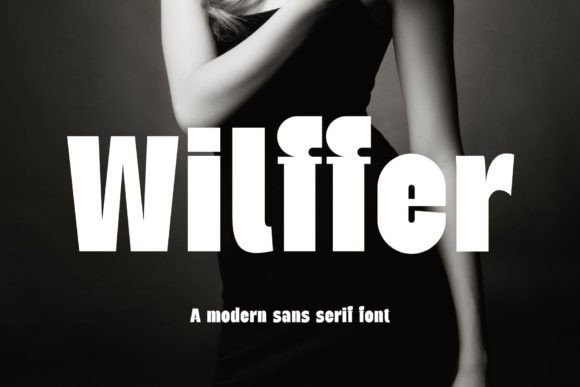
Dive into the realm of style and poise with Wilffer Font, the sans serif masterpiece designed to captivate fashion-forward bloggers and designers. Wilffer isn't just a font; it's an expression of modern aesthetics, meticulously crafted to elevate your digital creations to new heights of sophistication.
With Wilffer, your designs will exude an air of elegance and minimalism, capturing the essence of contemporary fashion. Its clean lines and balanced proportions dance harmoniously on the screen, creating a visual symphony that draws eyes and captivates hearts. Whether you're crafting logos, website layouts, or eye-catching social media posts, Wilffer provides the perfect canvas for your creative genius.
Fashion is about more than just clothing; it's about attitude, passion, and individuality. Wilffer embodies this spirit, allowing you to infuse your designs with a touch of personal flair. Its versatility shines through in its ability to adapt seamlessly to various contexts, from sleek and modern blogs to whimsical and playful online boutiques. With Wilffer, your designs will radiate a sense of uniqueness that sets them apart from the ordinary.
But Wilffer isn't just about aesthetics; it's also a font engineered for clarity and impact. Its characters are meticulously designed to ensure maximum legibility, even at small sizes or on low-resolution screens. Whether you're crafting website content, social media posts, or eye-catching advertisements, Wilffer ensures your message is crystal clear and leaves a lasting impression.
Join the ranks of fashion-forward creatives who have embraced Wilffer and witnessed the transformation of their digital creations. Embrace the power of typography and elevate your designs to the realm of artistry with Wilffer, the sans serif font that speaks volumes in the world of fashion.